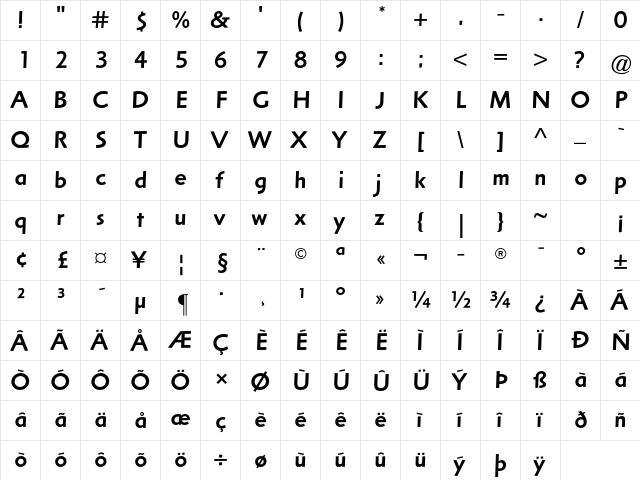
Arta Std Medium
| Designer | David Quay |
Design Context for Arta Std Typeface
Arta Std takes a measured approach to typography — its balanced proportions and neutral character make it a reliable workhorse for both digital and print work.